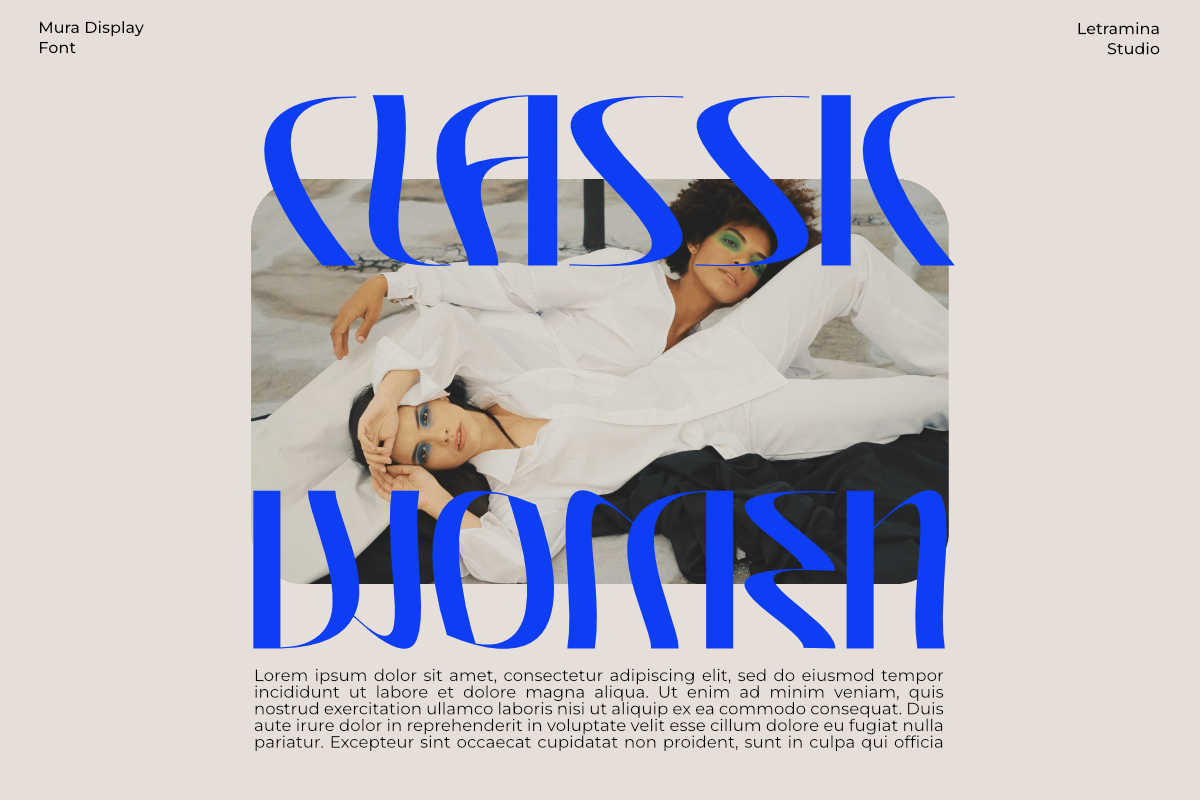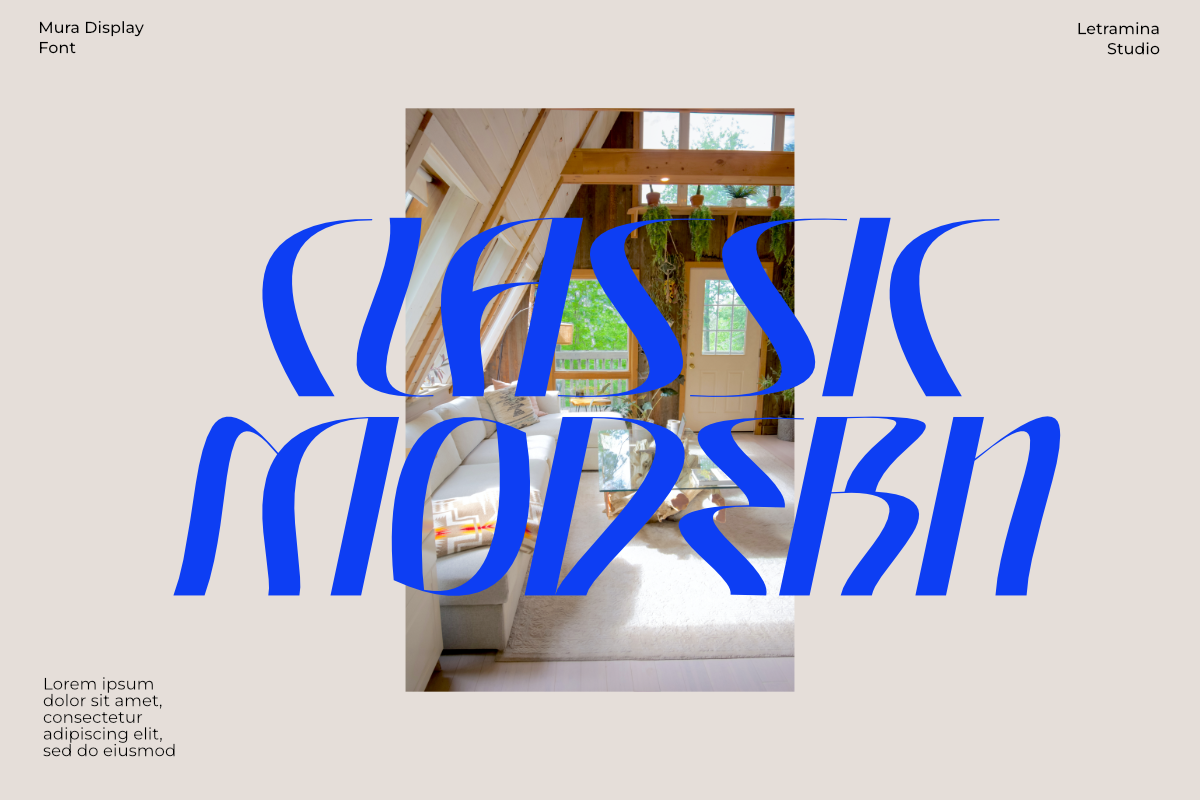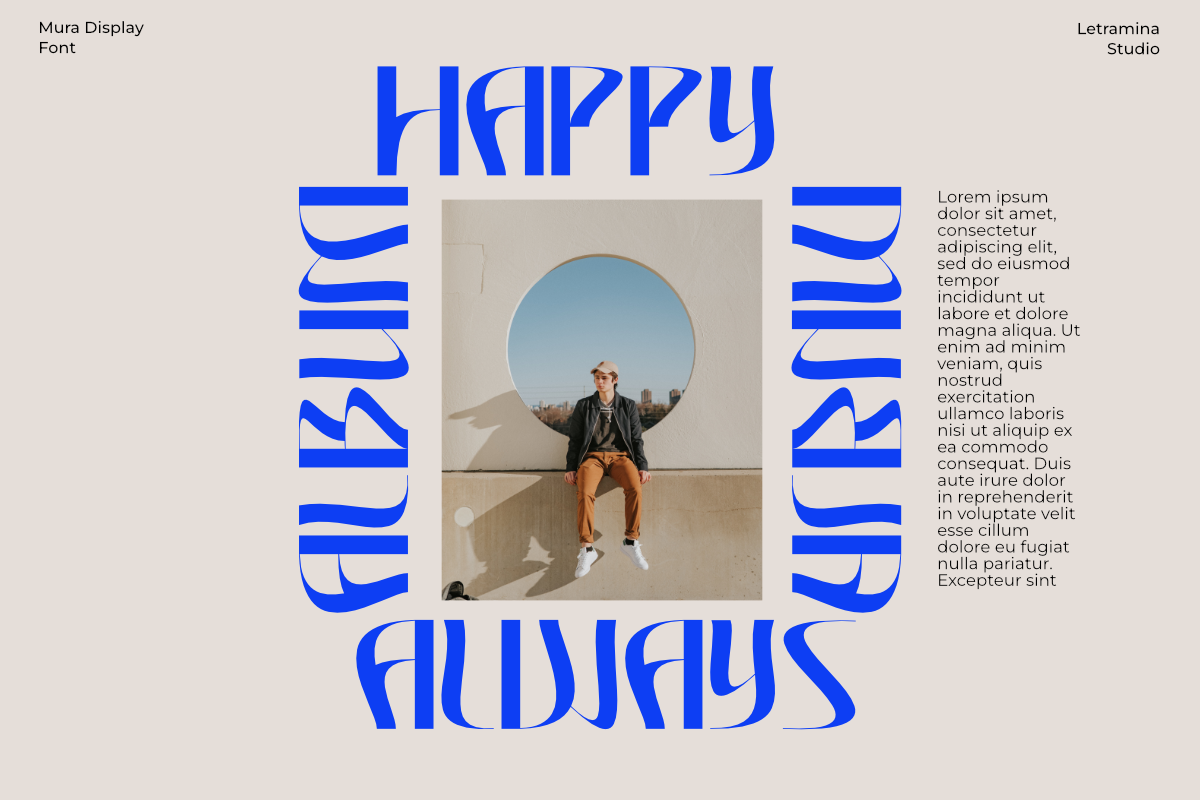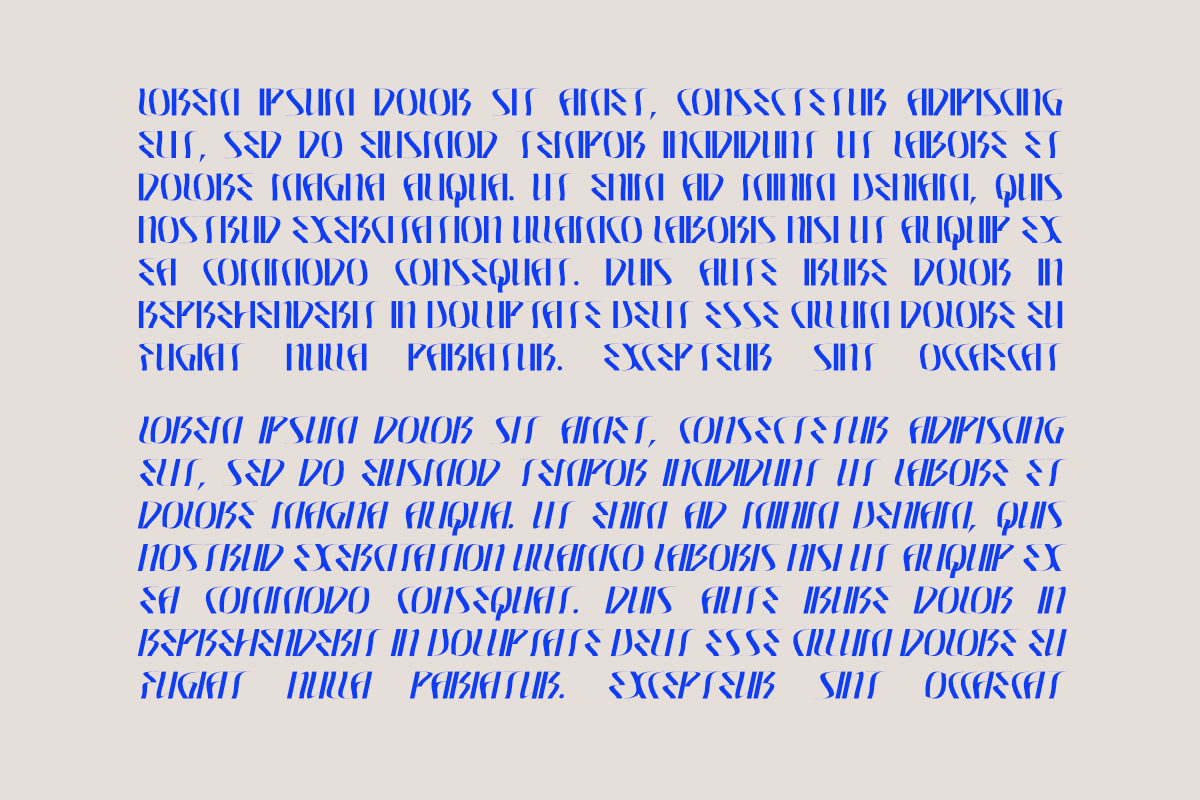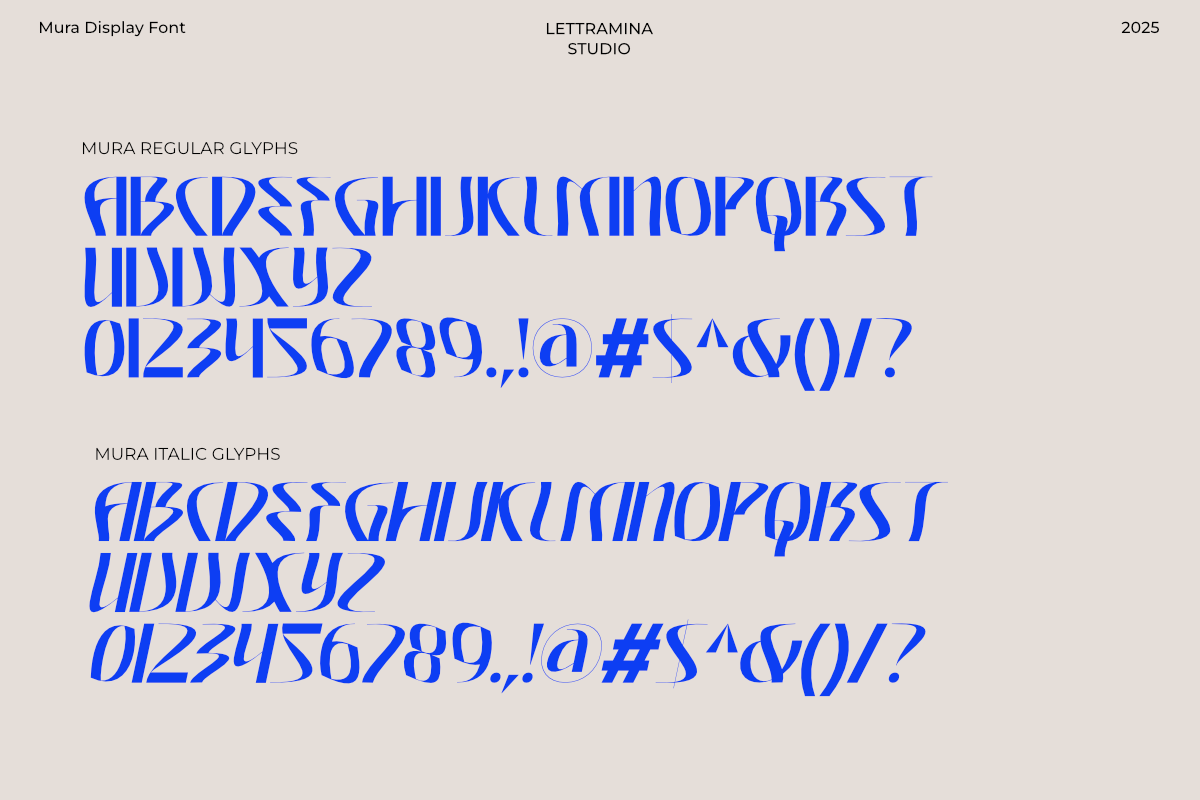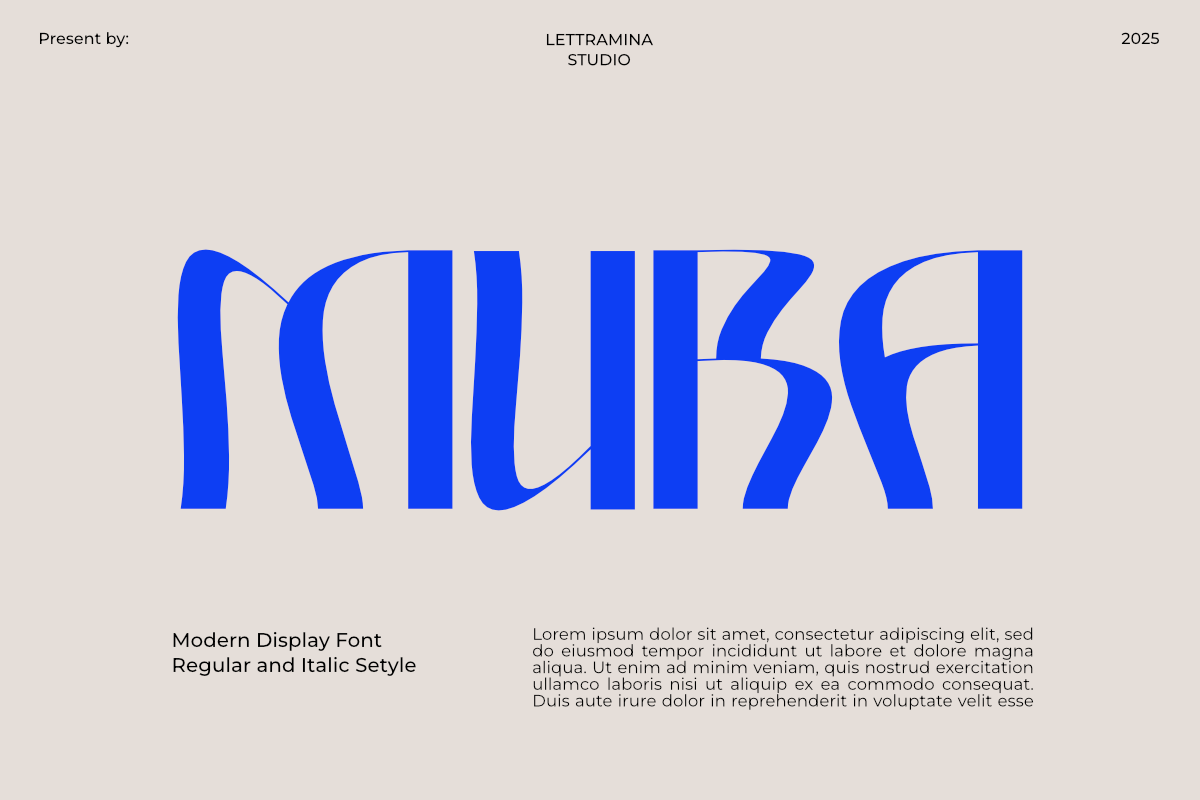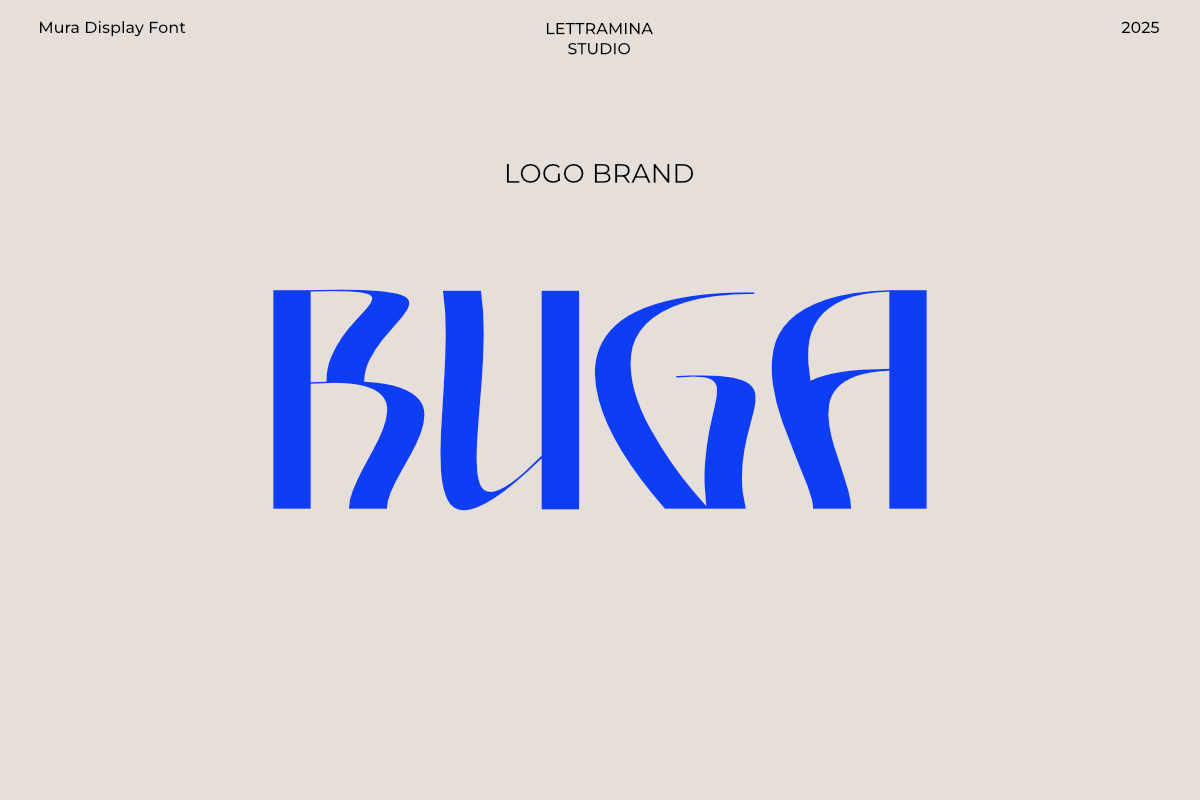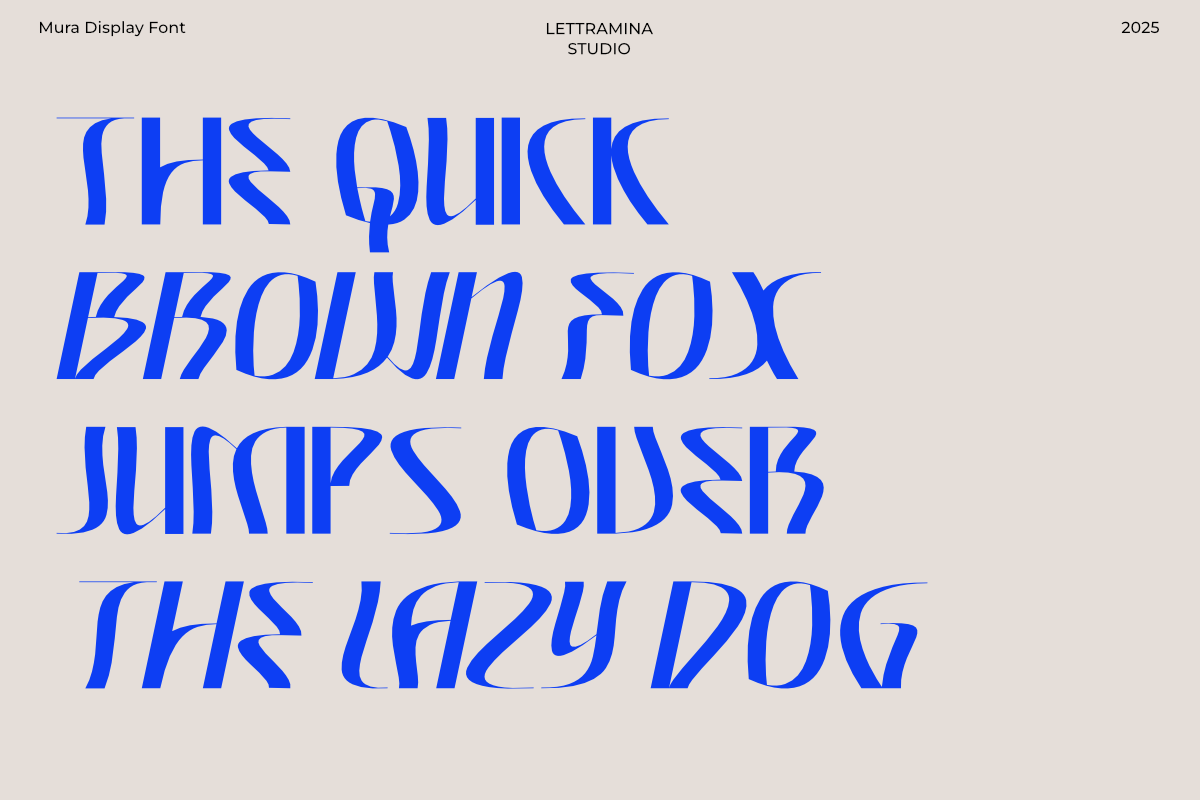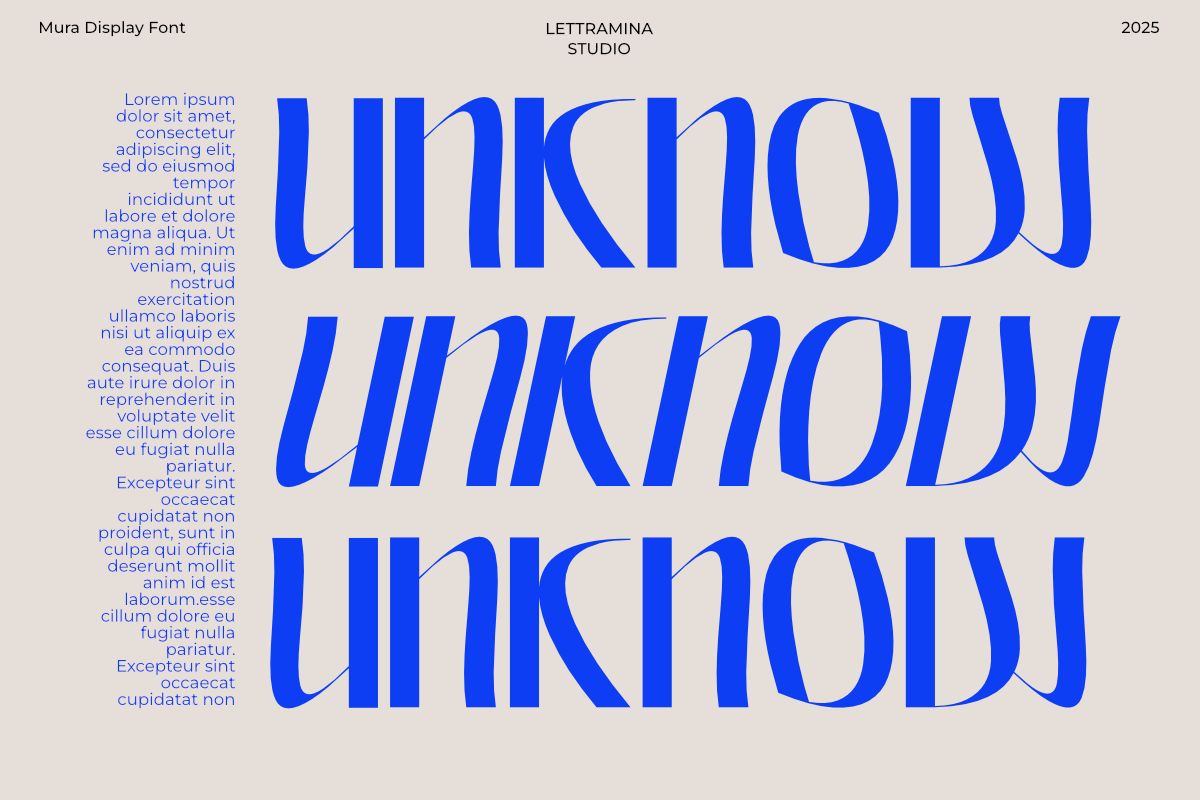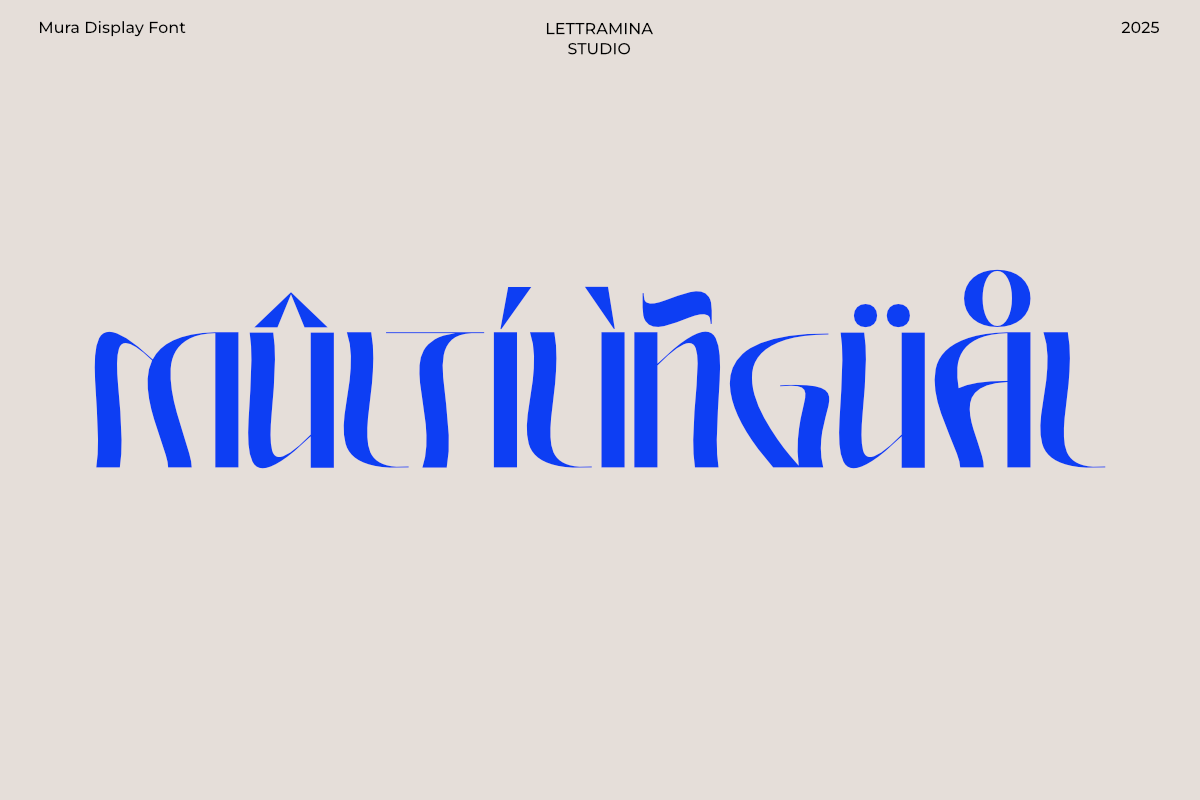
Mura - Modern Display Typeface
Mura is a modern display typeface with bold character and dynamic letterforms. Designed to stand out, Mura brings a futuristic and experimental feel, making it perfect for creative projects, editorial headlines, branding, and contemporary visual design.
The font comes in two styles: Regular and Italic. The Regular style delivers strong, structured forms, while the Italic style adds a sleek, expressive twist—maintaining sharpness with a sense of motion. Together, they offer flexibility across a wide range of design applications.
With its unique shapes and forward-thinking aesthetic, Mura is an ideal choice for designers seeking to make a distinctive statement.
Features: Uppercase & lowercase Multilingual support Alternates & ligatures Punctuation & symbols